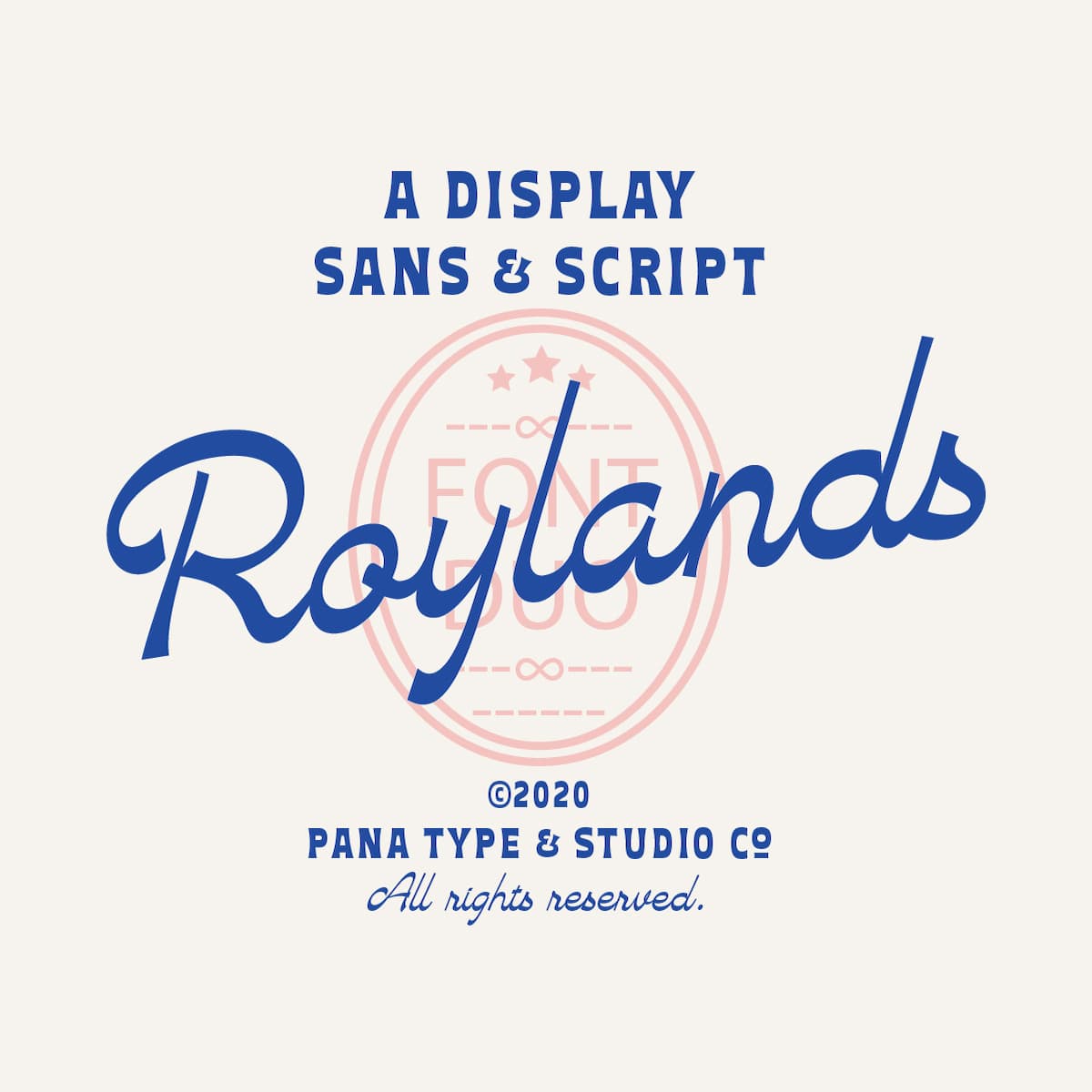
<p>Royland Font Duo is a mathing pair of fonts, inspired by a simple yet elegant vintage graphic design, carefully crafted, and opentype features to support is perfect for graphic design needs.</p>